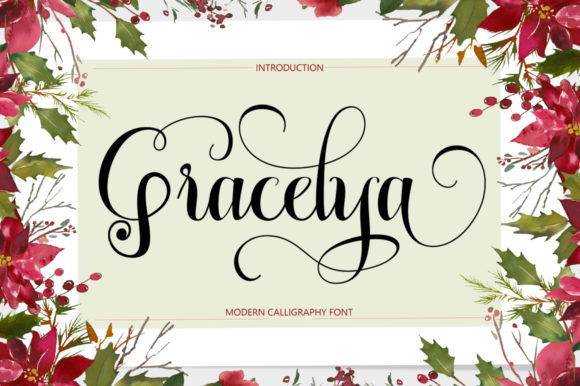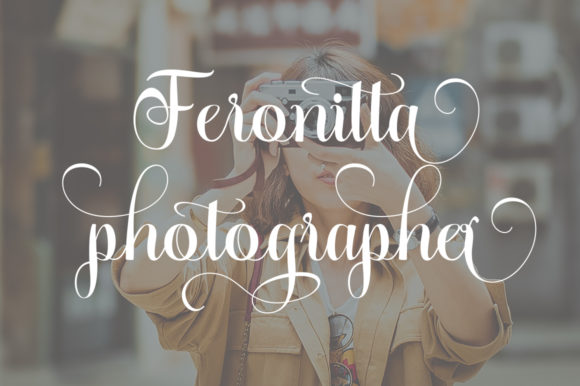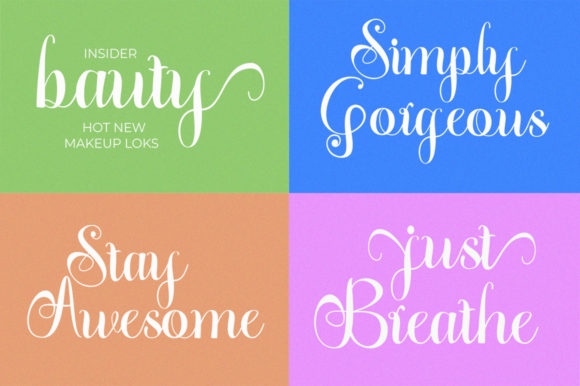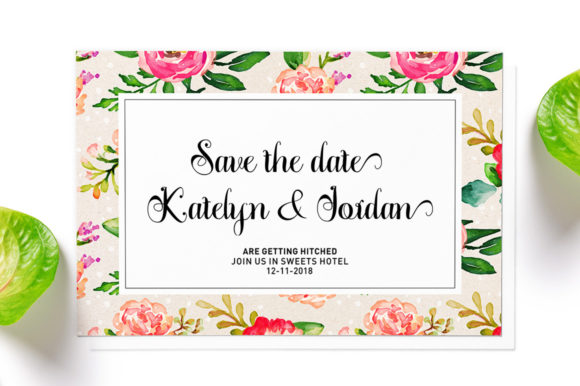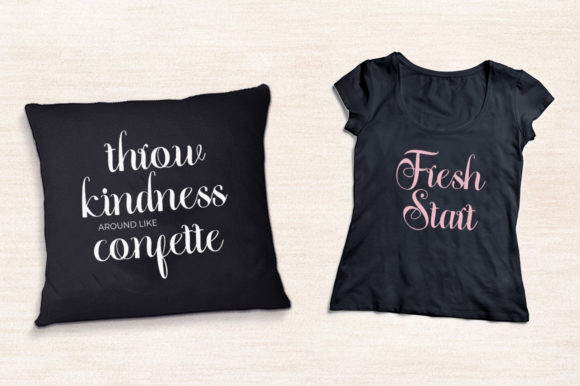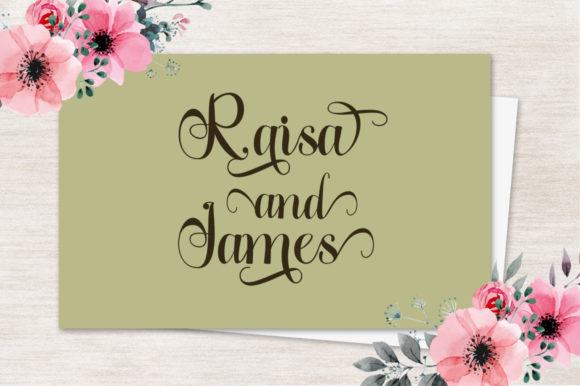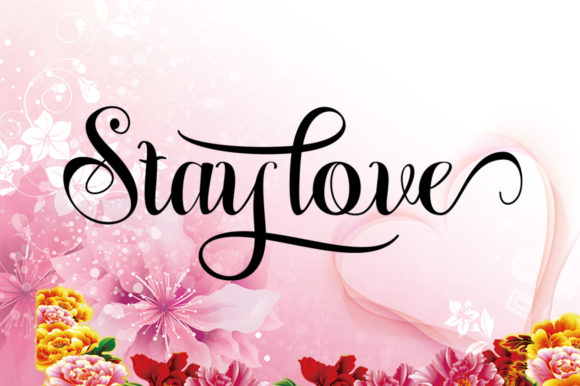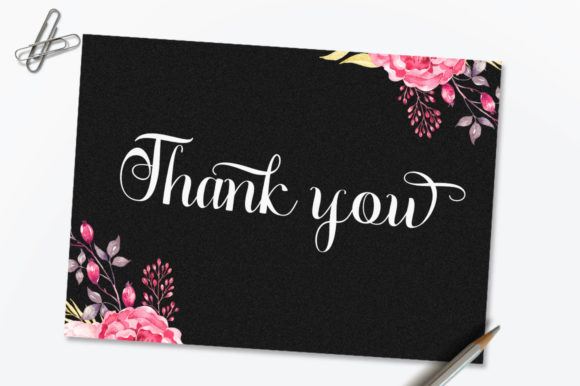
Gracelya Font
About Gracelya Font
Gracelya is inspired by classic calligraphy and brings its own unique style to any design project. This fantastic script font is best suited for headlines of all sizes, as well as for blocks of text that have both maximum and minimum variations. Whether it’s for web, print, moving images or anything else – Gracelya will look spectacular.
This font is PUA encoded which means you can access all of the magical glyphs and swashes with ease! It also features a wealth of special features including alternate glyphs and ligatures.